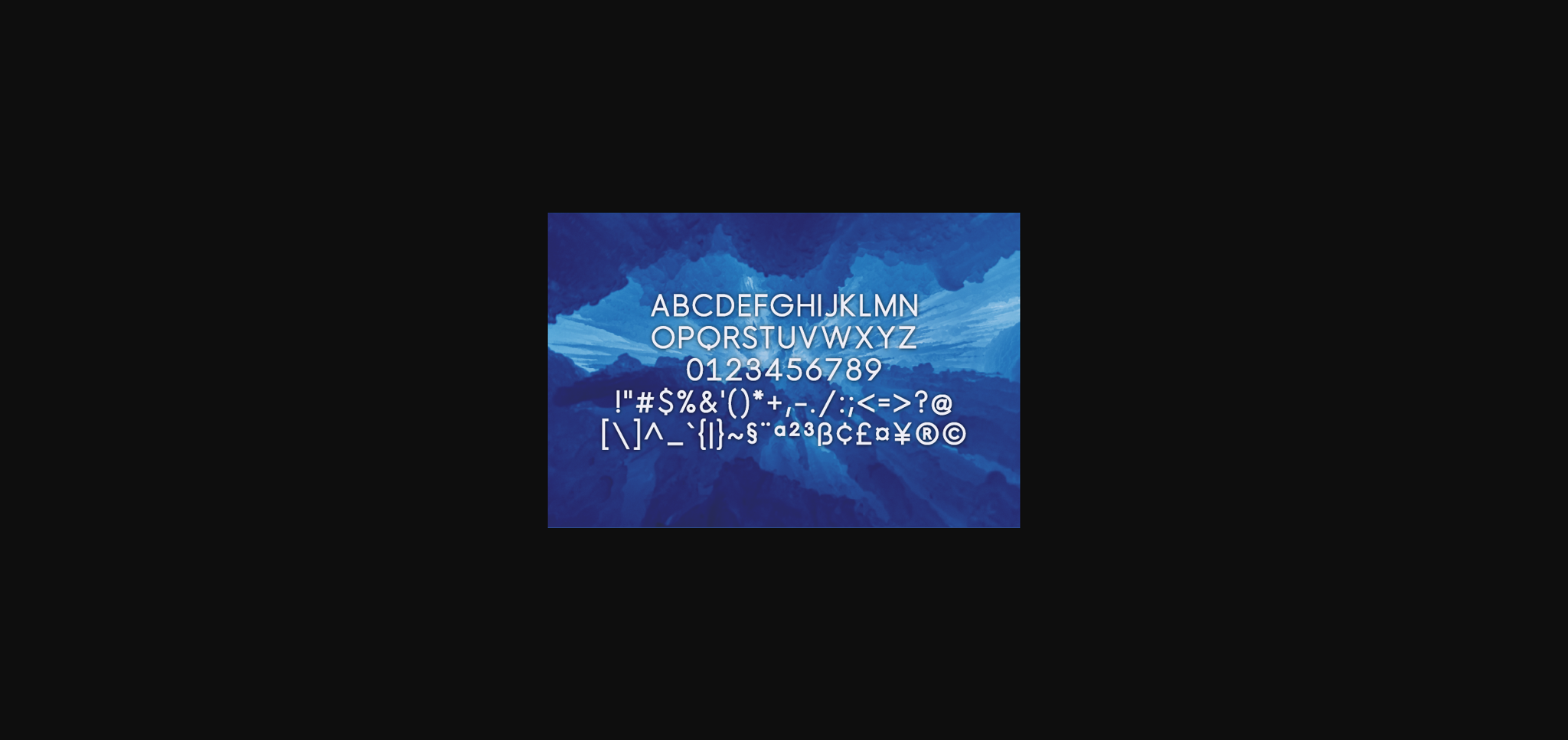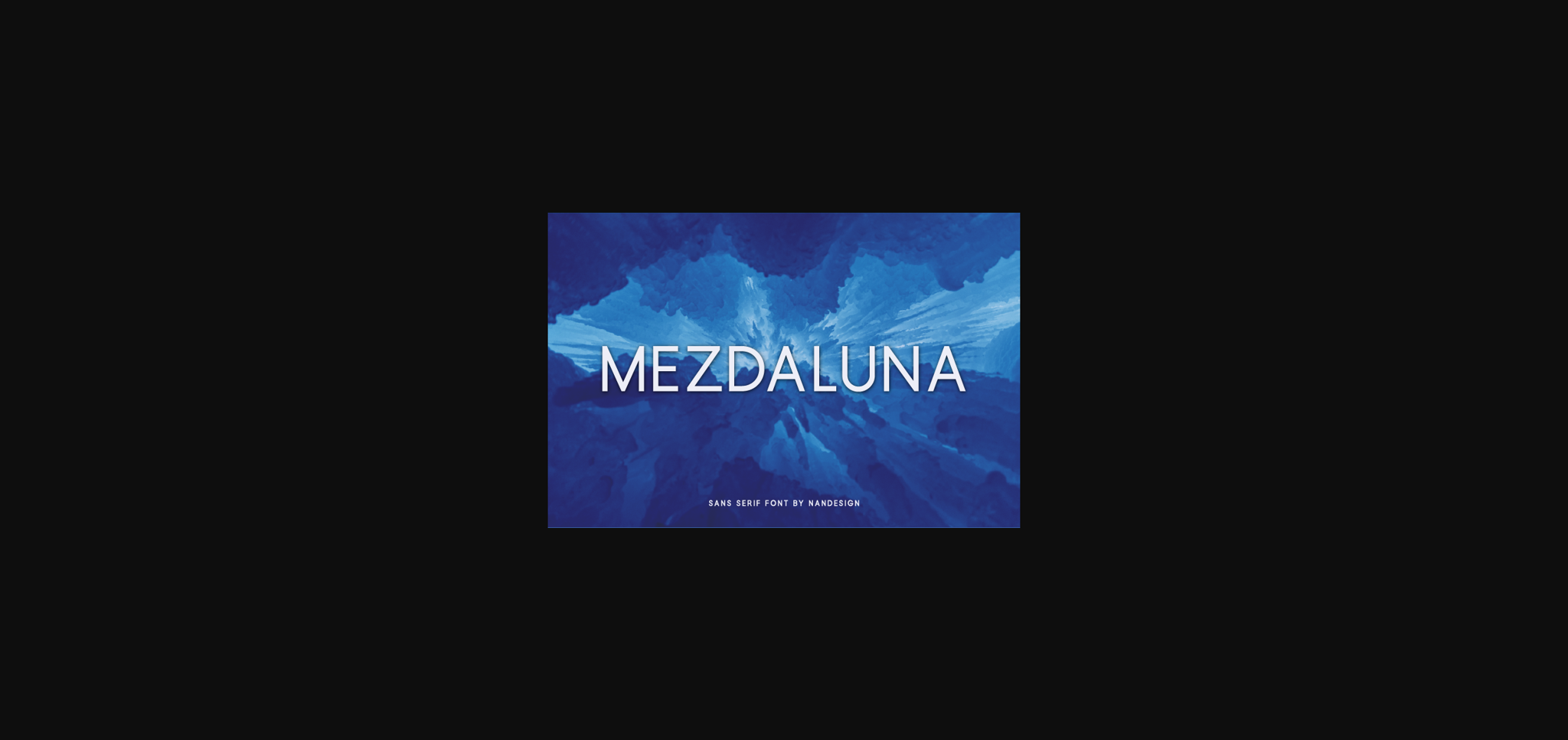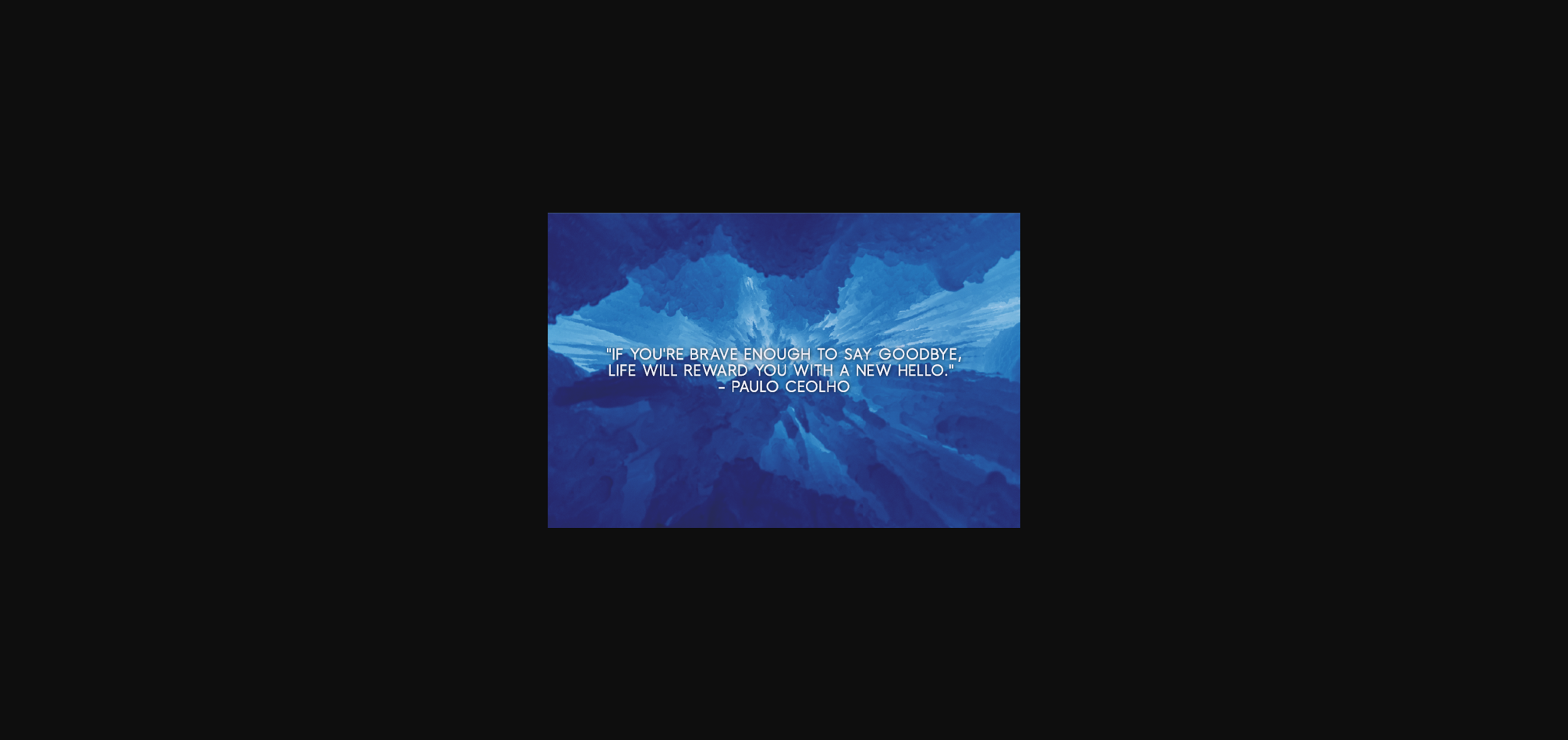
Mezdaluna Font
About Mezdaluna Font
Mezdaluna is a clean and smooth sans serif font. No matter the topic, this font will be an incredibly asset to your fonts’ library, as it has the potential to elevate any creation.